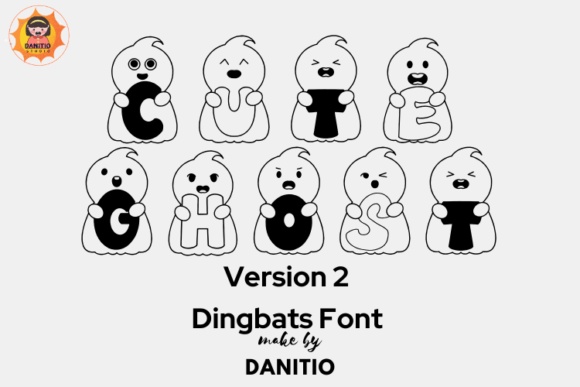
Venture into a realm of spectral delight with the enchanting Cute Ghost Version 2 Font, a Dingbats font that will cast a spell on your designs. Embrace the playful energy of Halloween with this font, brimming with an array of adorable ghost characters, each possessing a unique personality that will infuse your projects with charm and whimsy.
Unleash your creativity and let the Cute Ghost Version 2 Font haunt your designs, transforming them into captivating expressions of your imagination. Whether you're crafting t-shirts that exude a spooky yet endearing vibe or designing tote bags that carry a touch of the supernatural, this font will add a touch of magic to your creations.
Picture the delight of your customers as they receive mugs adorned with these mischievous ghosts, sure to bring a smile to their faces with every sip. Enchant book covers with eerie elegance or conjure coloring books that spark the imagination, allowing little ones to embark on haunting adventures.
The possibilities are endless with the Cute Ghost Version 2 Font, a versatile font that will add a touch of Halloween magic to any project. Let your creativity soar and let this font be your spectral companion, guiding you towards captivating designs that leave a lasting impression.